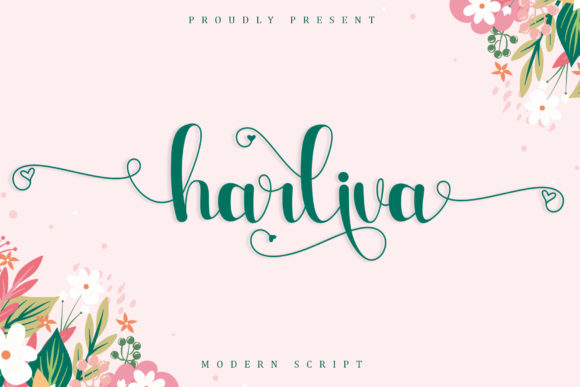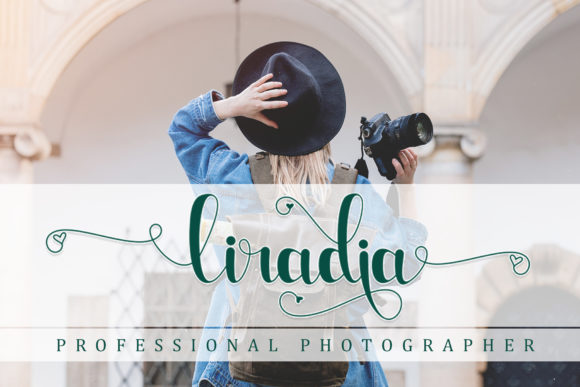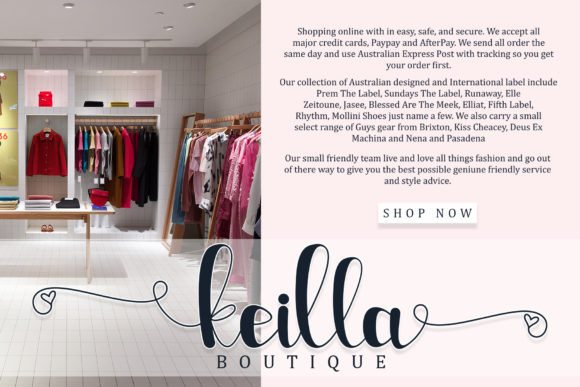
About Harliva Font
Harliva is a modern and romantic handwritten font. It looks lovely on invitations, cards, quotes, greeting cards, logos, business cards and every other design you can think of. It features a varying baseline, smooth lines, gorgeous glyphs and stunning alternates.